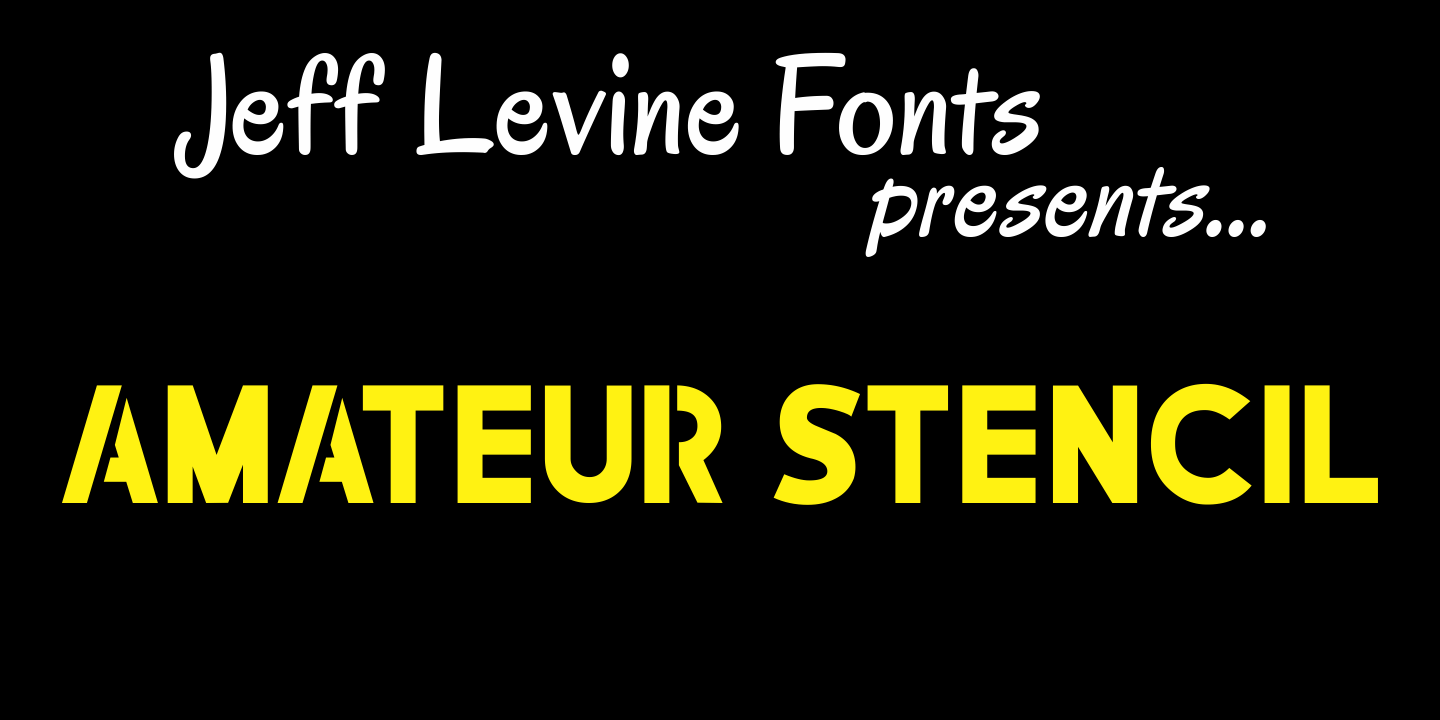
Amateur Stencil
With all of the stencil fonts created by Jeff Levine from various vintage sources, you would think everything had already been covered. Not so… Along comes Amateur Stencil JNL. Modeled from a child's stencil set from the late 1950s or early 1960s, it vaguely resembles Futura, but its irregular widths and semi-stencil appearance sets it off greatly from that classic typeface.